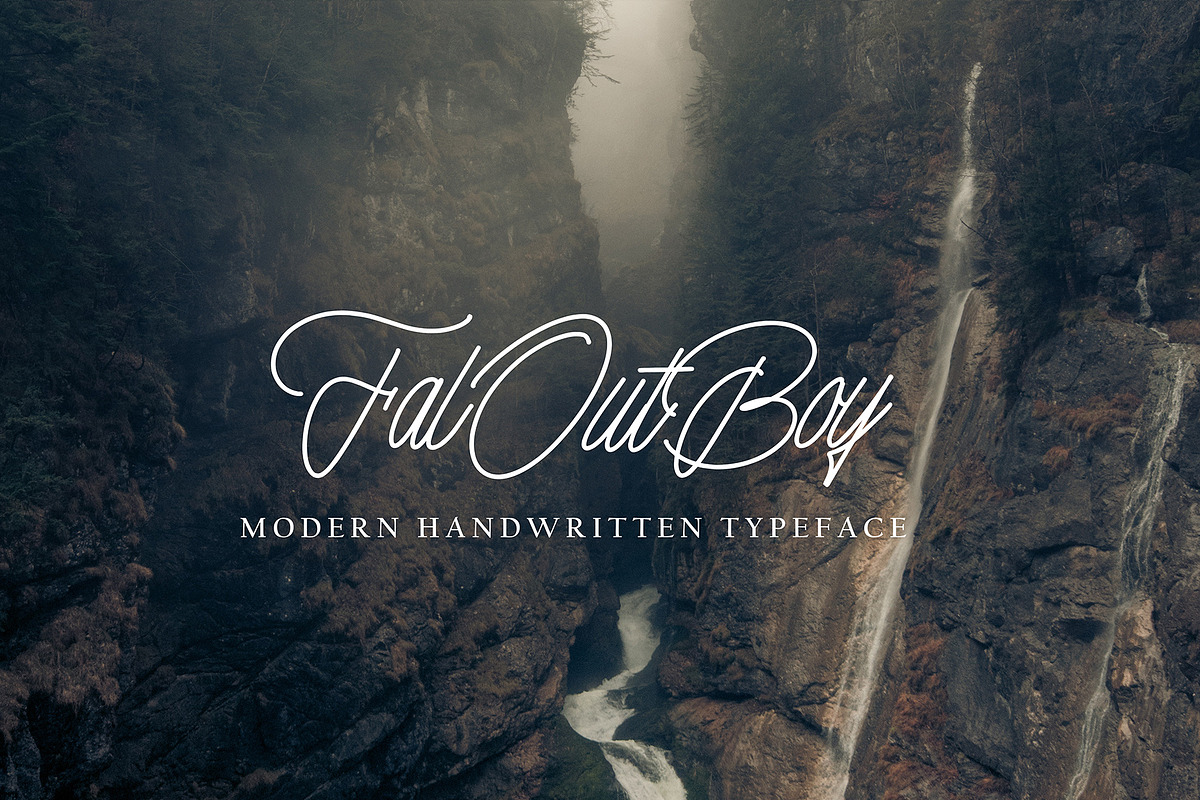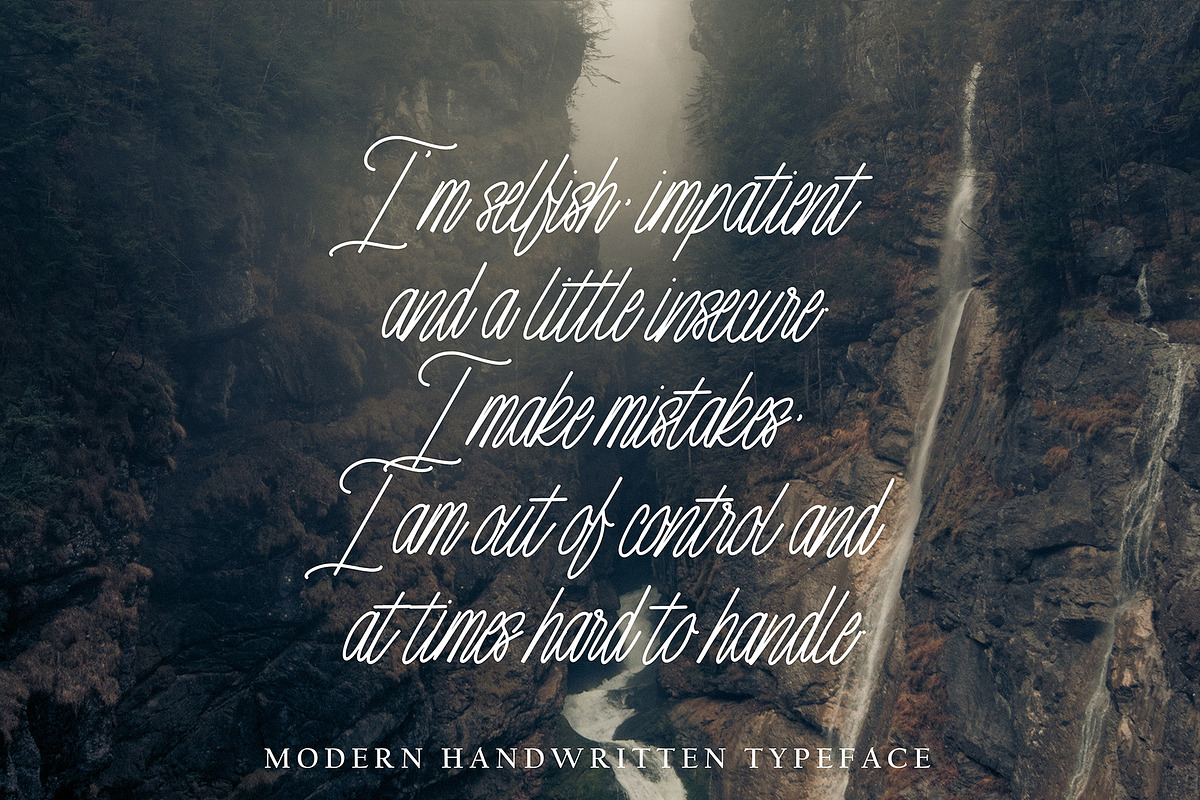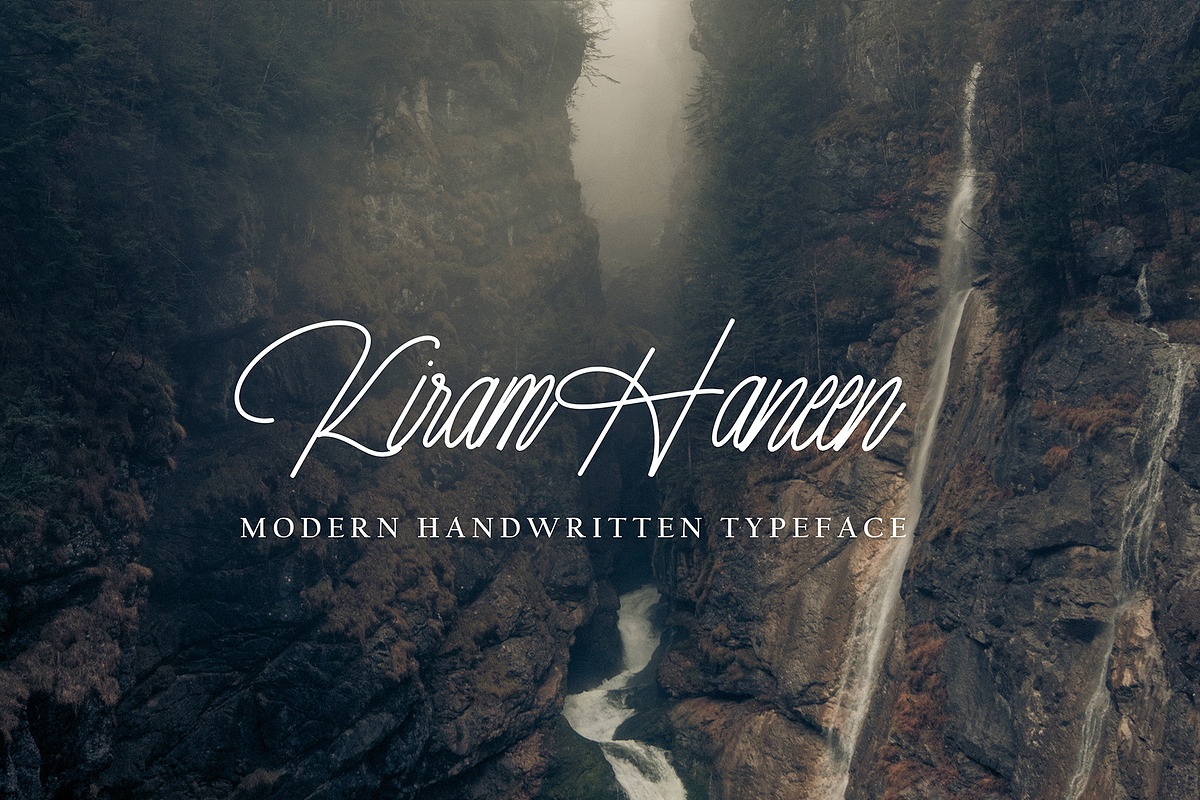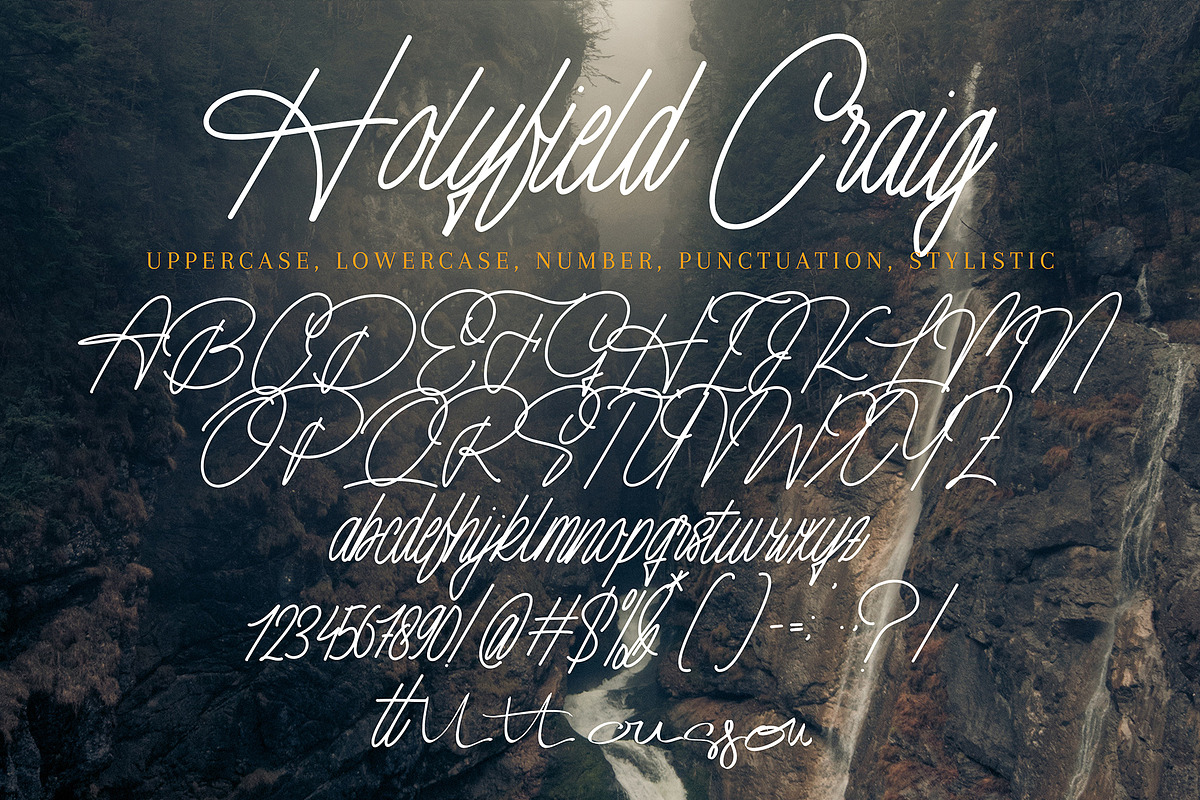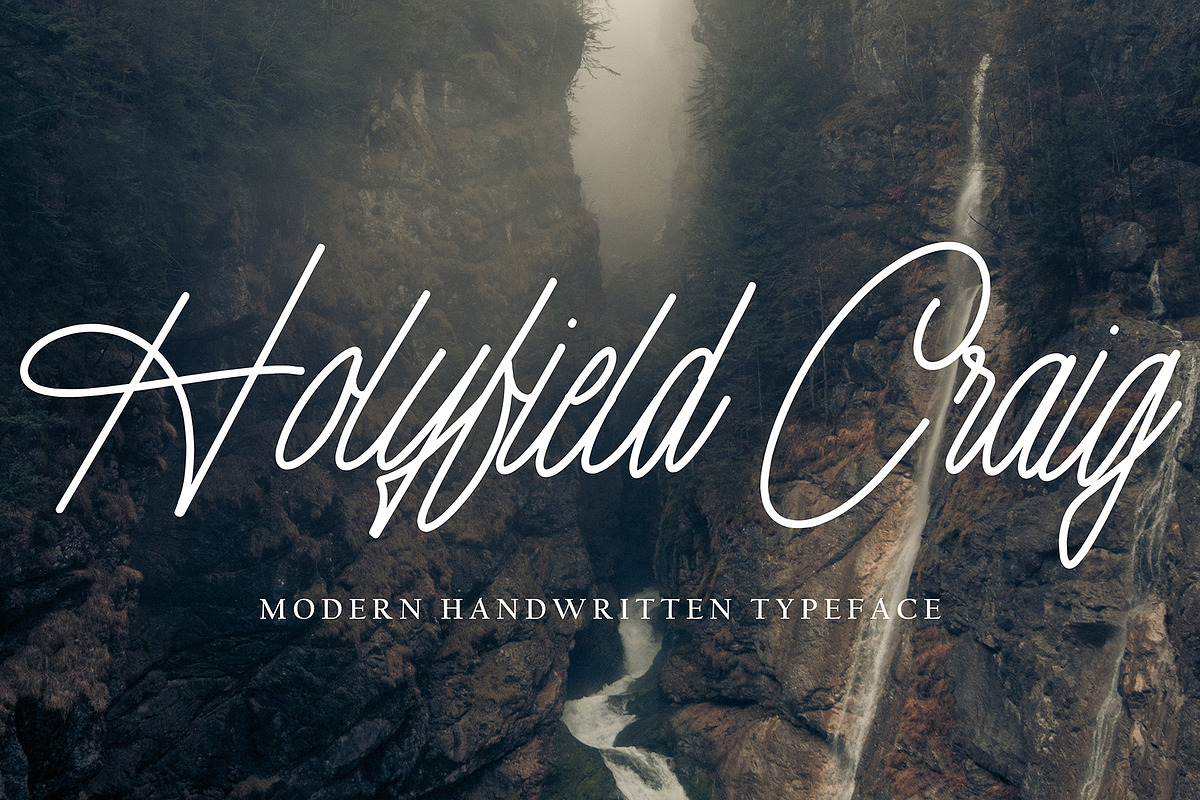
Holyfiled Crail
Holyfield Craig with new style, this font will perfect for many different project ex: quotes, logo, blog header, poster, banding, letter, invitation, stationery, etc...